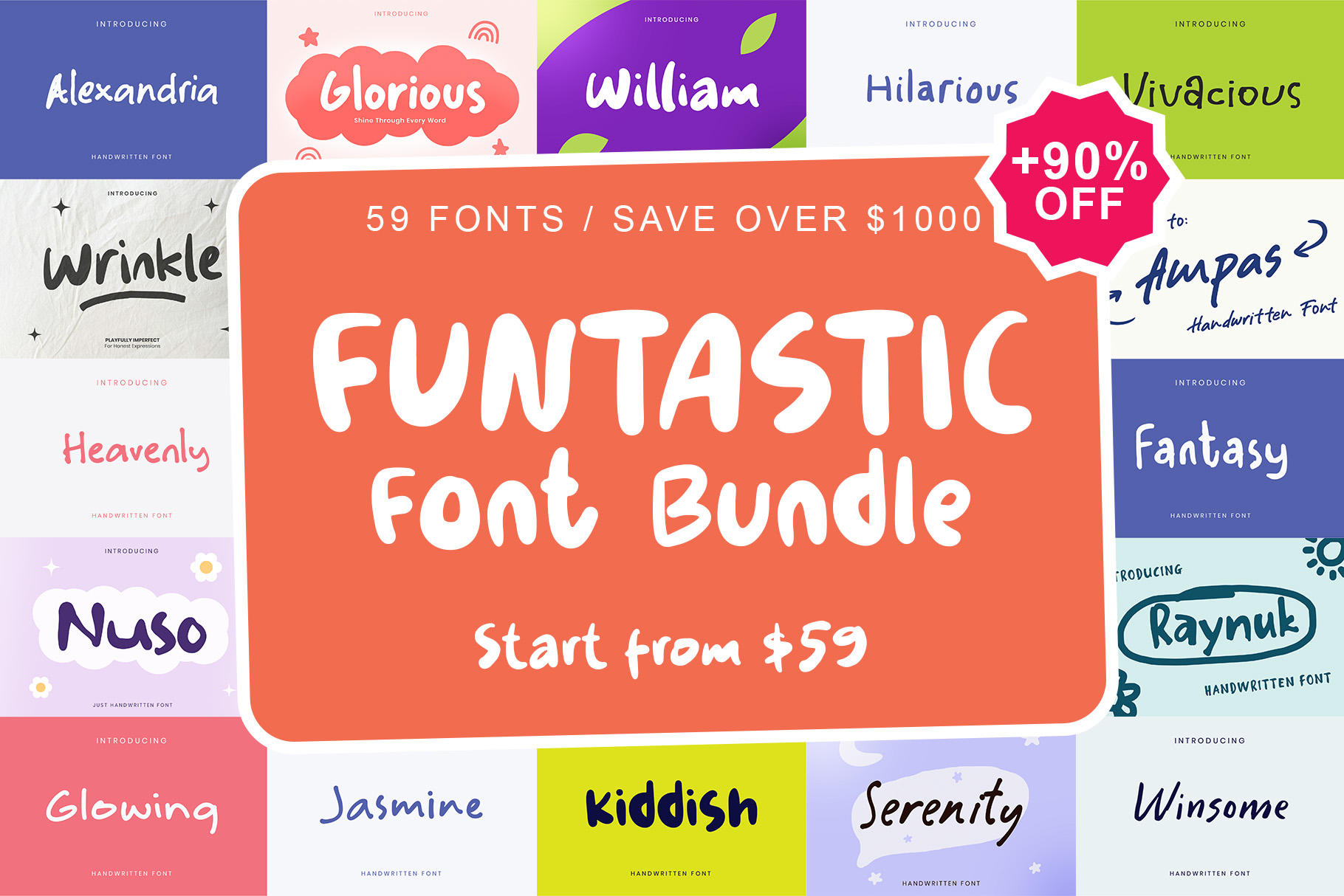
Add a burst of personality to your creative projects with the Funtastic Font Bundle! This vibrant collection features 59 unique handwritten fonts — perfect for branding, packaging, social media, greeting cards, kids’ designs, and more. Whether you’re going for cute, quirky, bold, or whimsical, there’s a font here to match every mood.
Each font is crafted with care to ensure legibility and charm, making this bundle a must-have for designers, crafters, and small business owners looking to stand out.
Make your designs pop with fonts like Glorious, Wrinkle, Serenity, Nuso, Raynuk, and many more!
Funtastic Font Bundle | 59 Playful Handwritten Fonts